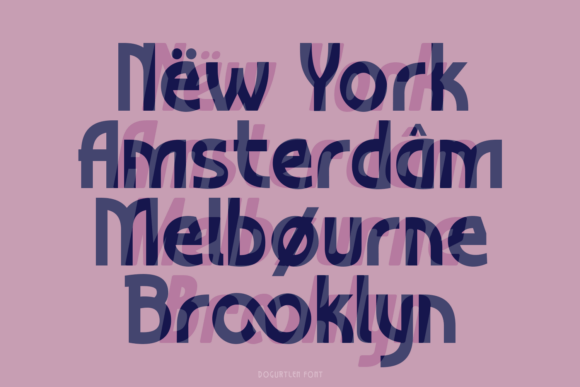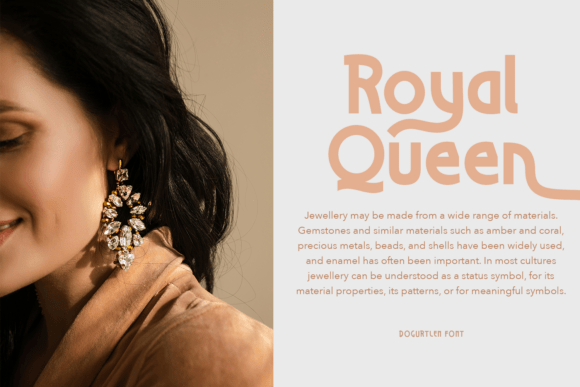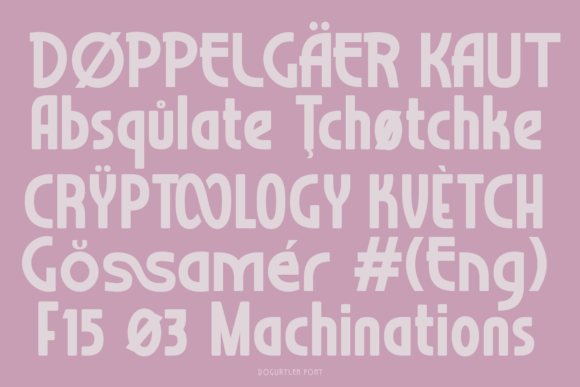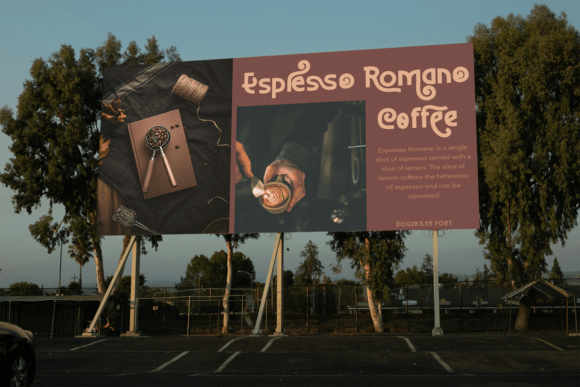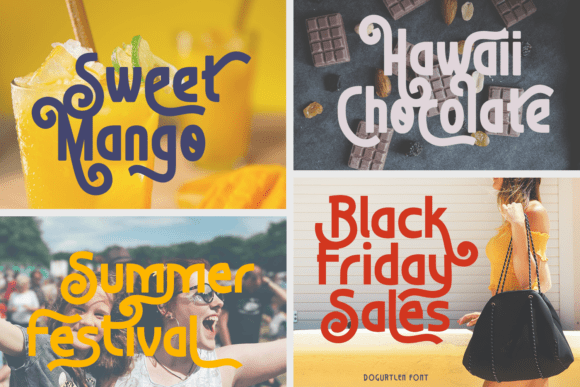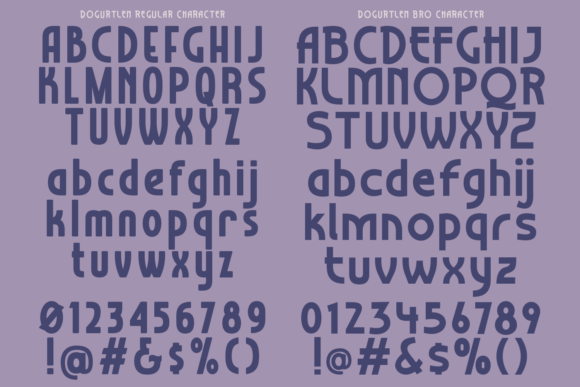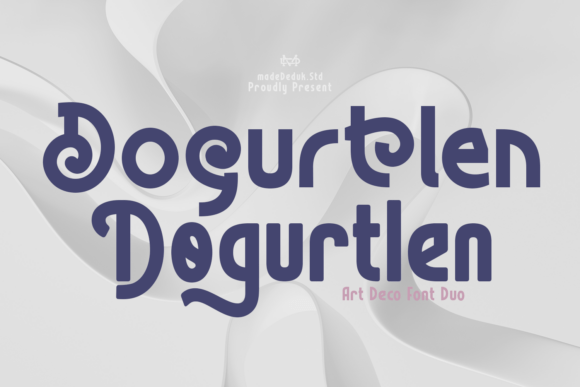
Introducing Dogurtlen Font: Elevate Your Designs with Art Deco Elegance
In the world of design, fonts play a pivotal role in conveying the tone and aesthetic of a project. For those seeking a touch of luxury, elegance, and uniqueness, the Dogurtlen Font duo is an exceptional choice. This art deco-inspired font family is meticulously crafted to offer a distinctive, high-end look that can elevate a wide range of design projects. Whether you’re working on a classic-themed magazine, a sophisticated brand logo, a captivating book cover, or an innovative product packaging design, Dogurtlen is poised to meet your creative needs.
Unique Features of Dogurtlen Font
Dogurtlen Font stands out with its unique characteristics, making it a versatile tool for designers. Here are some of its key features:
- Font Duo: Dogurtlen comes as a duo, offering two distinct fonts that can be used in harmony or contrast, depending on your design requirements.
- Art Deco Inspiration: Drawing inspiration from the art deco era, Dogurtlen embodies the luxury, elegance, and modernity that characterized this iconic design movement.
- Different Widths: The font family includes variations in width, allowing for dynamic text arrangements that can add depth and interest to your designs.
- Curly Alternative Characters: To further enhance versatility, Dogurtlen includes curly alternative characters. These can be used to add a playful touch or to emphasize certain words or phrases within your text.
- Ligatures: The inclusion of ligatures provides an additional layer of sophistication, enabling the creation of visually appealing connections between letters that can enhance the overall flow and beauty of your typography.
Applications of Dogurtlen Font
The Dogurtlen Font duo is incredibly versatile, making it suitable for a multitude of design applications. Here are some of the areas where Dogurtlen can truly shine:
- Magazine and Editorial Design: Add a touch of elegance to your magazine spreads, editorials, and articles with Dogurtlen’s sophisticated art deco charm.
- Headline Branding: Create memorable brand headlines that stand out with the unique and luxurious feel of Dogurtlen.
- Book Covers: Give your book covers a classic, timeless appeal that captures the essence of art deco luxury, making your titles instantly recognizable.
- Logo Design: Craft distinctive and elegant logos that embody the spirit of your brand, using Dogurtlen’s wide range of stylistic options.
- Packaging Product Design: Elevate your product packaging with a sophisticated look that not only stands out on shelves but also communicates luxury and quality.
Tips for Using Dogurtlen Font Effectively
To maximize the impact of Dogurtlen in your designs, consider the following tips:
- Mix and Match: Don’t be afraid to combine different widths, curly alternatives, and ligatures to create a unique look that suits your project’s theme.
- Play with Contrast: Utilize the font duo aspect of Dogurtlen to create striking contrasts within your design, drawing attention to key elements.
- Consider Context: Ensure that the use of Dogurtlen aligns with the overall aesthetic and tone of your project, whether it’s classic, luxurious, or modern.
Dogurtlen Font offers designers and crafters a powerful tool to infuse their projects with a unique blend of art deco elegance, luxury, and modern sophistication. With its distinctive features, including different widths, curly alternative characters, and ligatures, Dogurtlen provides the versatility needed to tackle a wide range of design challenges. Whether you’re aiming to create a classic-themed masterpiece or a contemporary design with a vintage twist, Dogurtlen is an excellent choice for those seeking to leave a lasting impression.
Embrace the elegance and creativity that Dogurtlen Font has to offer, and elevate your designs to new heights of sophistication and style.